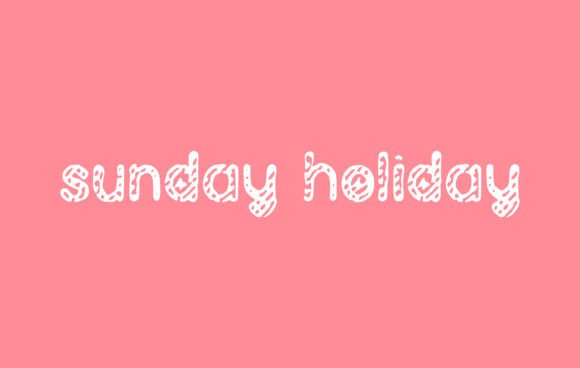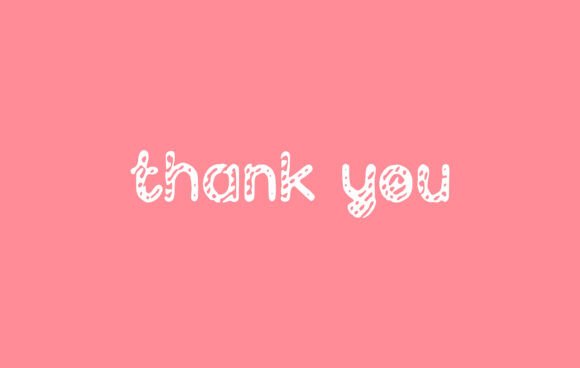
Introduction to Merry Makers Font
Have you ever been stuck in a creative rut, desperately searching for the perfect font to elevate your project? I know I have! There’s nothing quite like the thrill of discovering a game-changing design resource that takes your ideas from bland to grand. For designers, finding the right font can be a make-or-break moment, and that’s exactly what the Merry Makers Font is here to do.
Expertly designed with a romantic touch, the Merry Makers Font is an authentic handwritten font that’s sure to capture the hearts of your audience. Whether you’re working on a wedding invitation, a social media campaign, or a magazine headline, this versatile font has got you covered. With its legibility and high-quality design, it’s the perfect addition to any creative project.
Key Features of Merry Makers Font
- High-quality design resource perfect for creative projects, offering a unique and festive feel.
- Unique characteristics include intricate details and ornate designs, making it perfect for adding a touch of elegance to your creative project.
- Designed with a focus on versatility, making it suitable for a wide range of design applications, from invitations to social media graphics.
Honest Review: Merry Makers Font
I recently stumbled upon the Merry Makers Font, and I must say, it’s been a game-changer for my creative projects. This free download has been a lifesaver, especially when working on designs that require a fun and playful touch.
- ✨ High-quality design: The Merry Makers Font boasts a unique and modern aesthetic, making it perfect for any design resource.
- ✨ Versatility: The font is incredibly versatile and can be used for a wide range of creative projects, from branding to social media graphics.
- ⚠️ Limited character set: The font only includes a basic character set, which may not be ideal for longer texts or complex designs.
- ⚠️ Not ideal for small text: Due to its playful nature, the font may not be suitable for small text sizes, where legibility is crucial.
Overall, the Merry Makers Font has been a valuable addition to my design resource library. While it may have some limitations, its unique design and versatility make it a great choice for any creative project.
Tips for Getting the Most Out of Merry Makers Font
Experiment with different font sizes, colors, and styles to achieve the desired effect. Combine Merry Makers Font with other design elements to create a unique and creative project.
Merry Makers Font is suitable for various design projects, including social media graphics, flyers, posters, and branding materials. Its high-quality design and transparent background make it an ideal choice for designers and non-designers alike.